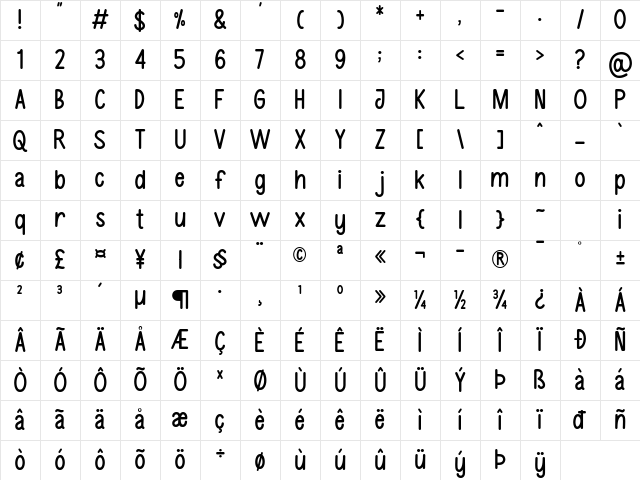
Hazelnut Milk Tea is a composed and adaptable typeface that performs quietly and consistently across a wide range of design contexts.
Pro Tip: Use Hazelnut Milk Tea in both headline and body roles to test its range before committing to a single application.